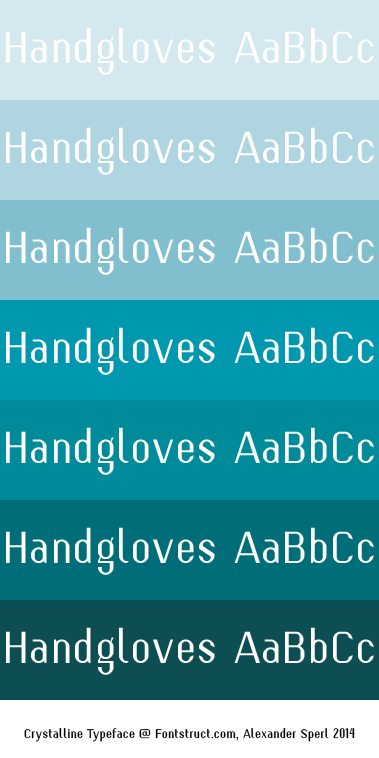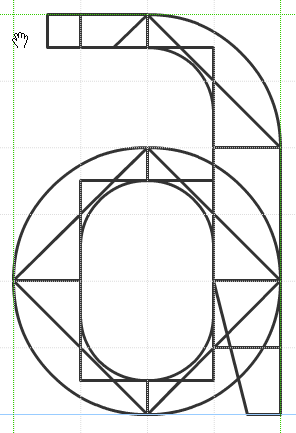
Excellent work with some beautiful details. Nice to see the outline sample.
Nice and clean design with real curves. The outline view gives a glimpse to the tricky inner parts. 10/10
Was this inspired by Waremann? Looks similar.
I like the double-storey g. The middle of S/s/2 look a bit thick.
A very clean, pleasing design.
@Yautja, I see what you mean. Actually it must have been some subconcious thing, because I didn't think of your typeface while designing mine. But given the fact that the techniques are very much alike, I gave you credit in the description. The S/s/2 are bummers. I didn't know what to do with them...
vector font, great job
That looks like complicated brickwork, the result is so stylish.
You've created an excellent typeface out of this technique! I really like the sharp corners of the g, and the sweeping tail on the y.
Believe it or not, I actually designed (but never posted) something similar before Yautja shared Waremann. Great minds think alike, I guess! ;)
@ETH: It's a pity you didn't post it. It looks like it's definitely worth it!
Great font; very stylish.  The 'g' is absolutely kick-ass!  Rocks, rocks, rocks indeed!